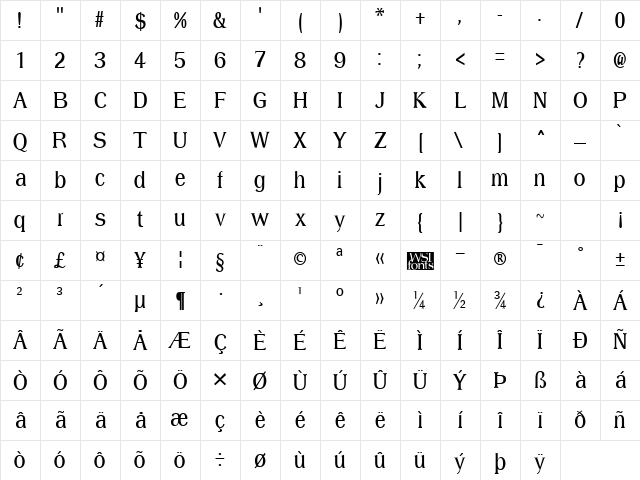
Dressel Light is a composed and adaptable typeface that performs quietly and consistently across a wide range of design contexts. Its slender proportions lend an understated elegance to any composition.